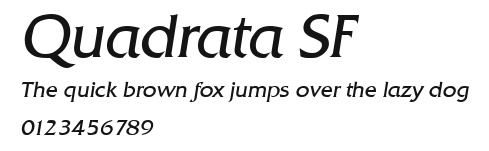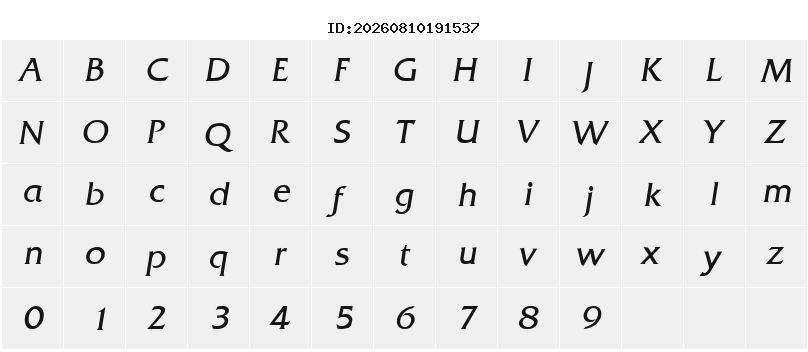
Quadrata SF Preview
• Font Name: Quadrata SF
• Font ID: Altsys Fontographer 3.5 Quadrat Italic
• Full Font Name: Quadrata SF Italic
• PostScript Name: QuadrataSF-Italic
About Quadrata SF.ttf
Quadrata SF.ttf is a modern, elegant sans-serif font designed for ultimate readability and visual harmony. Perfect for branding, headlines, web design, and print materials.